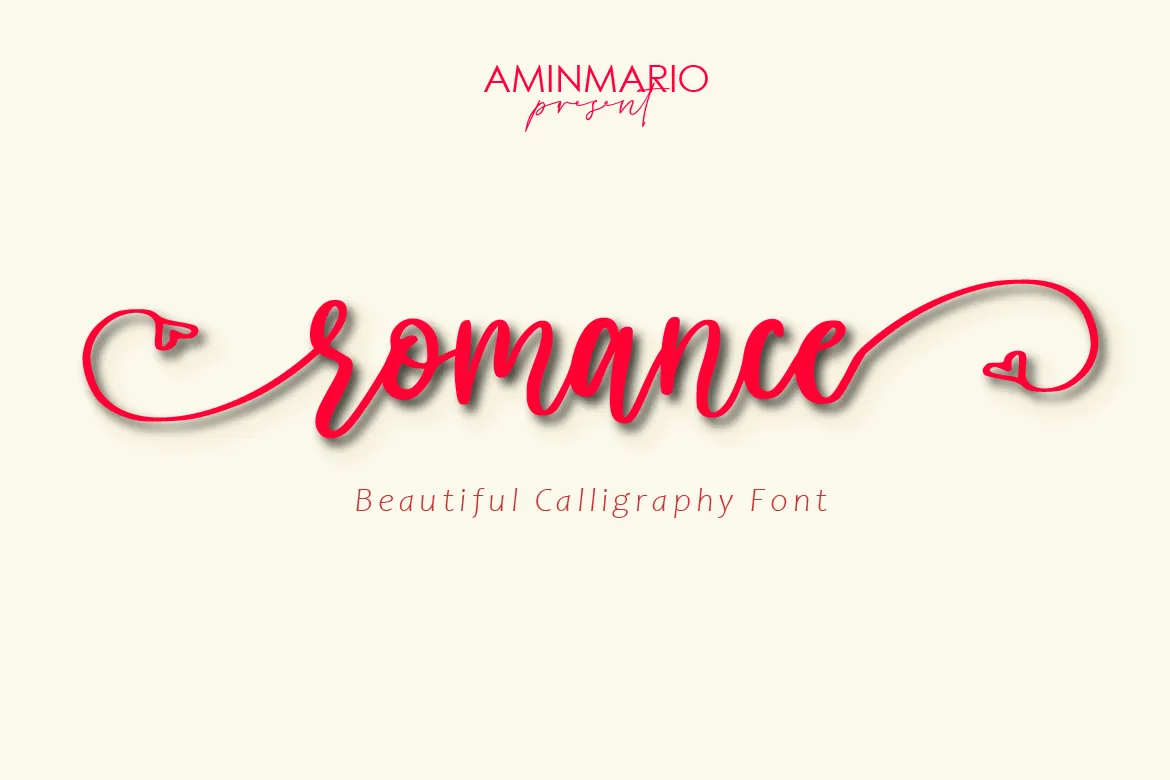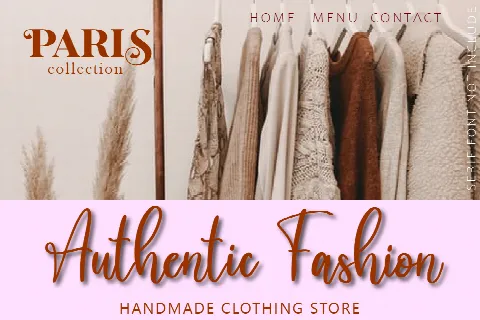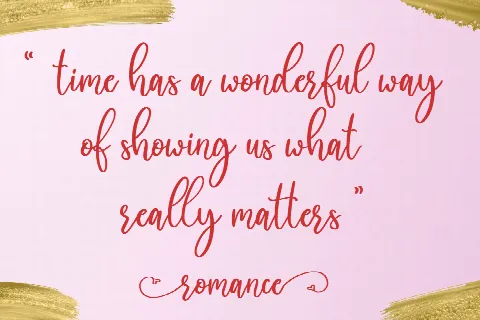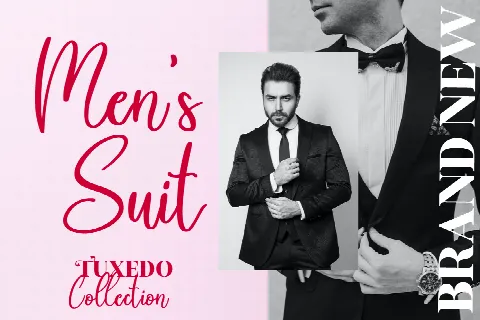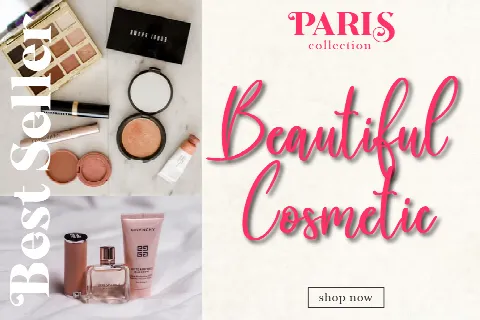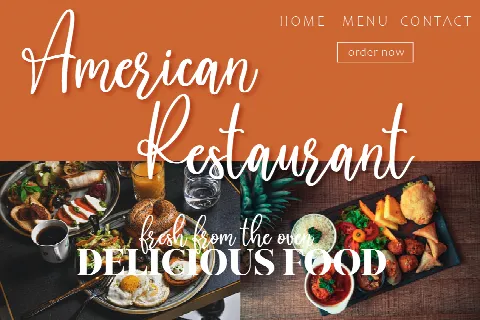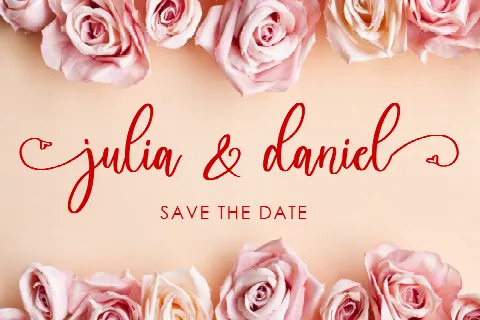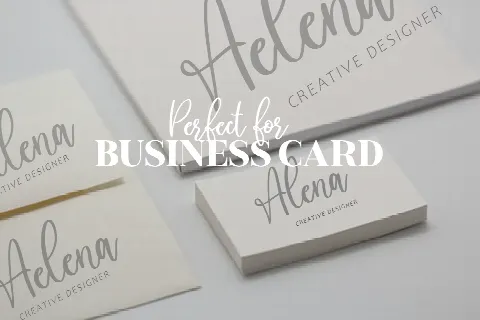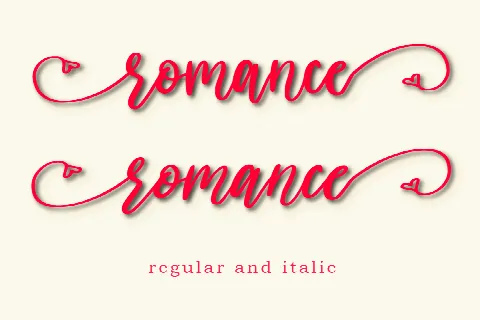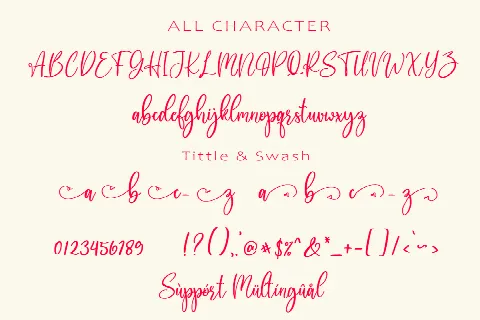
Romance
Romance is a beautiful calligraphy font with beginning and ending swashes love. Comes with regular and italic, also support multilingual. This is suitable for branding, header, quotes, invitations, stationery, wedding design, logos, watermarks on photography, signatures, advertisement, album covers, business cards, clothing, magazines, posters, and more!